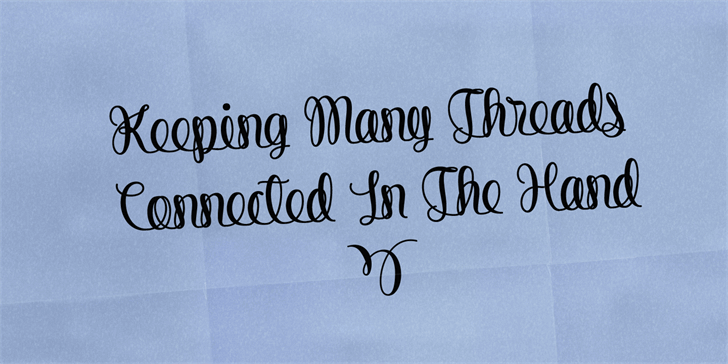
String Line Script Font
Introducing String Line. The typeface is designed by Måns Grebäck and supports many languages. String Line is a loopy script typeface. Its elegant turns are connected to form spiral-like lettershapes. This font is amazing for different project ex: photography, watermark, quotes, blog header, poster, wedding, branding, logo, fashion, apparel, letter, invitation, stationery, etc.